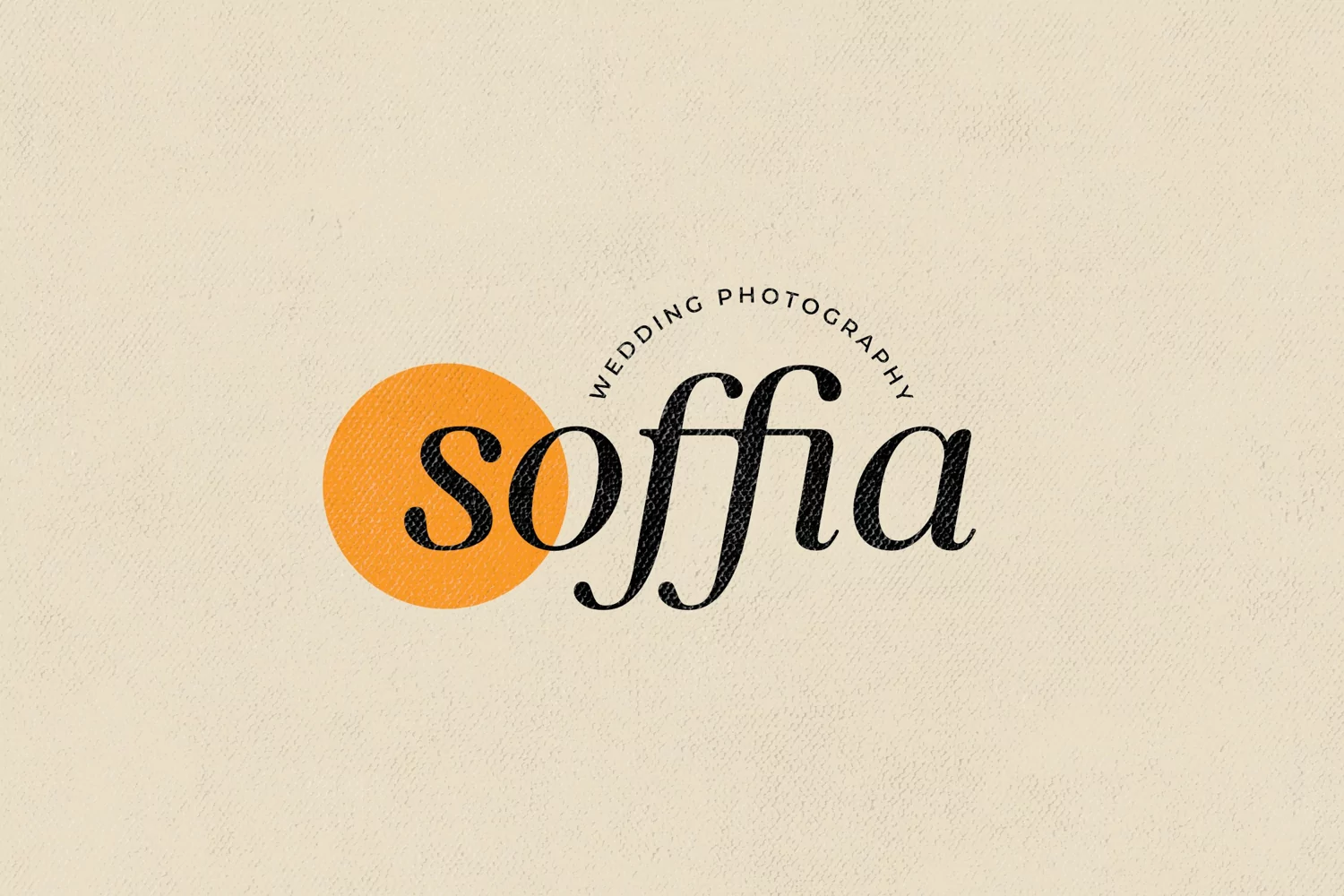
Blisstwin - Elegant Glamour and Stylish Italic Serif - Modern Classy and Feminine Beauty Italic Font
Blisstwin font comes with some ligatures, so you can combine it to make a perfect typography design. Blisstwin Elegant Italic Serif font is perfect for your up coming projects. Such as luxury logo and branding, classy editorial design, woman magazine, cosmetic brand, fashion promotional, art gallery branding, museum, historical of architectural, boutique branding, stationery design, blog design, modern advertising design, card invitation, art quote, home decor, book/cover title, special events and any more.